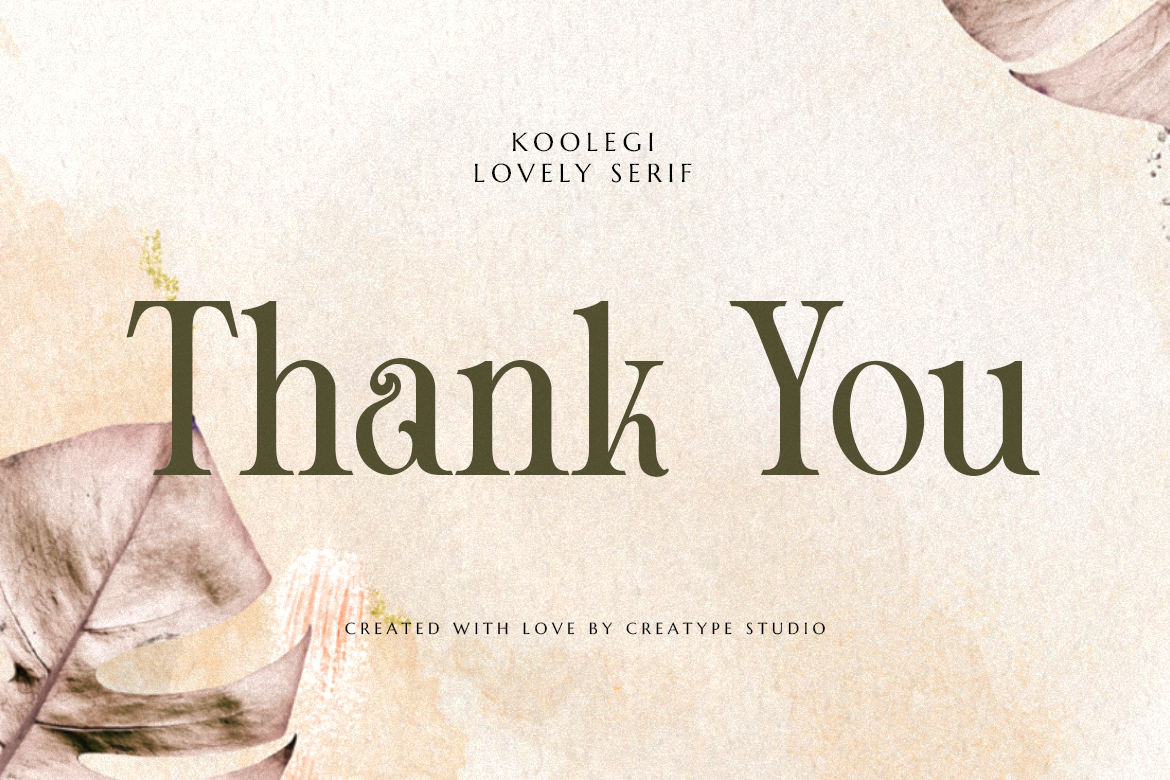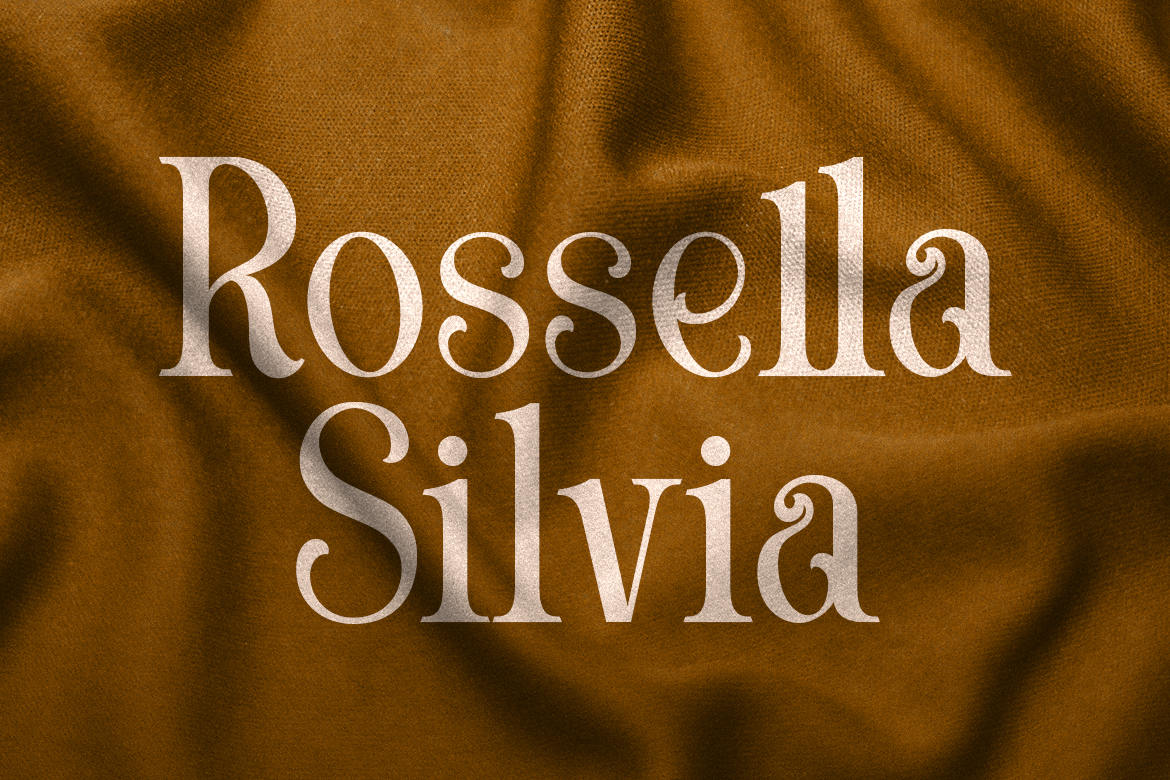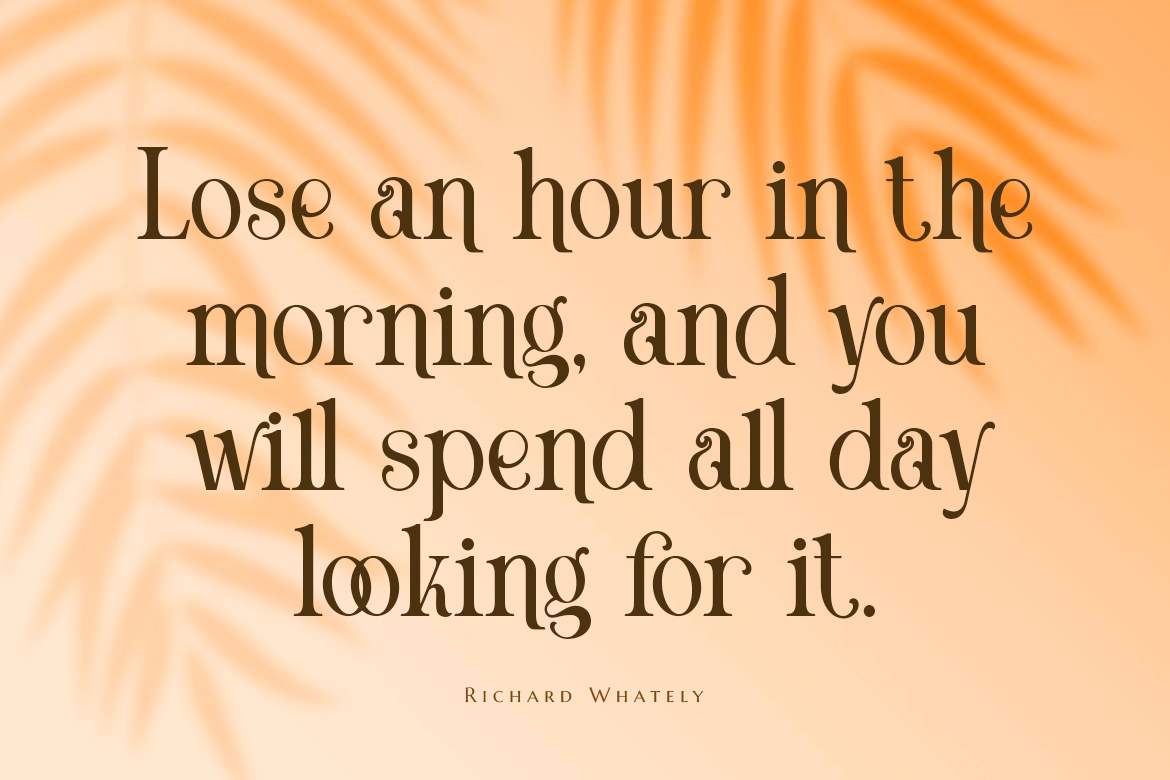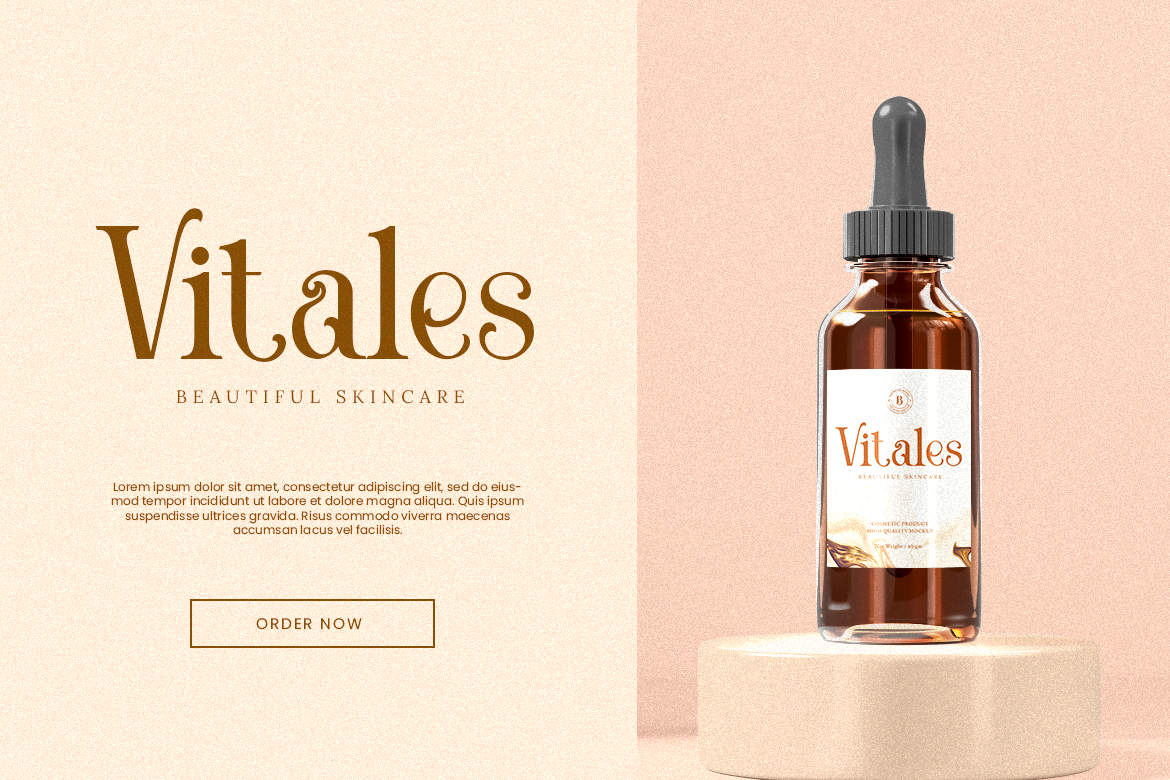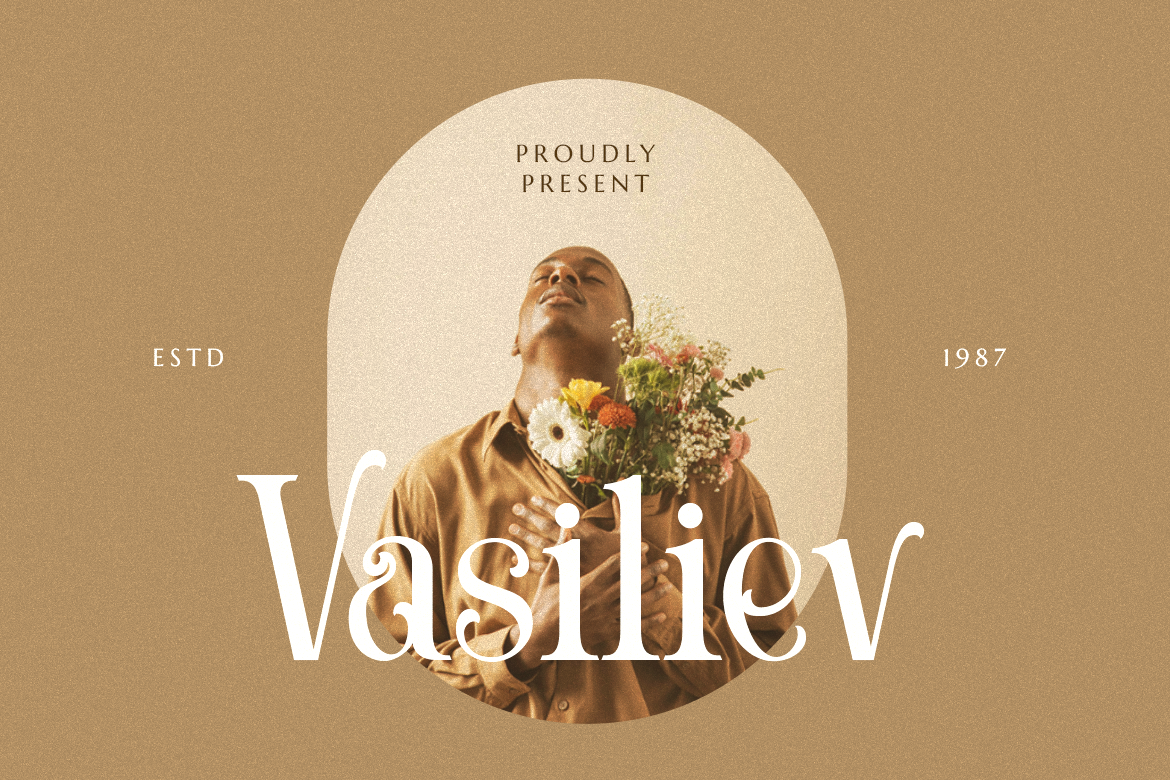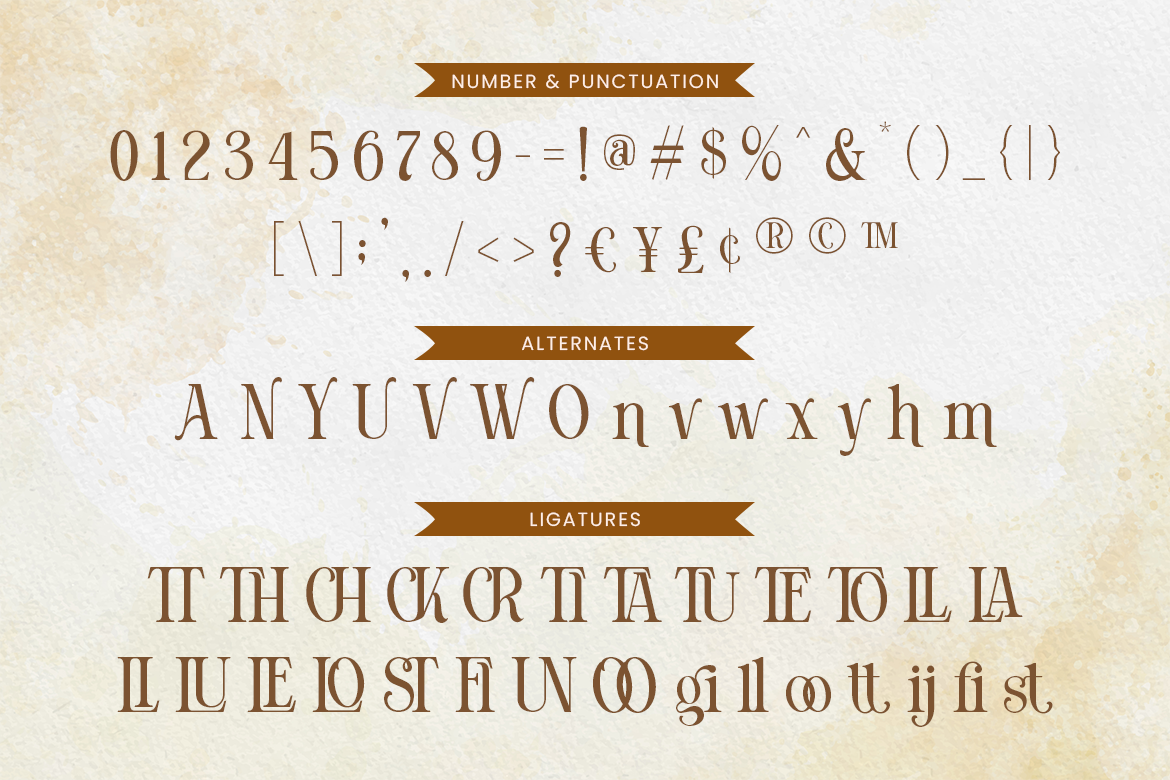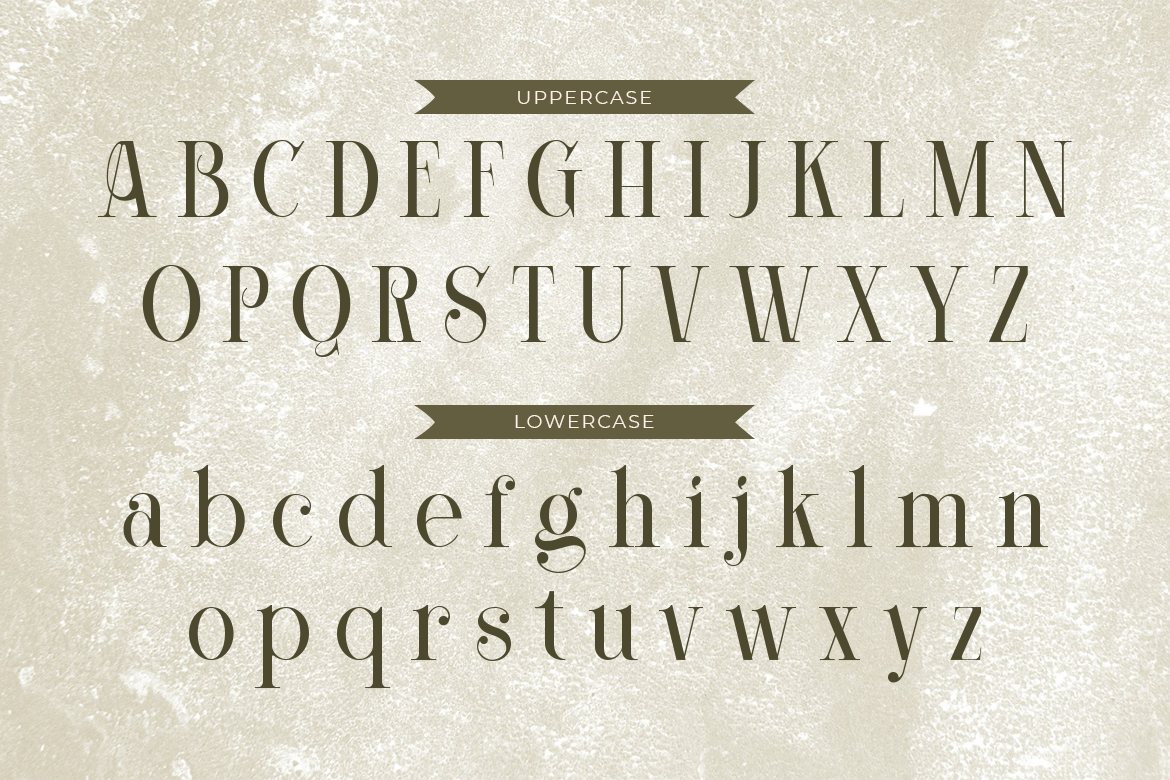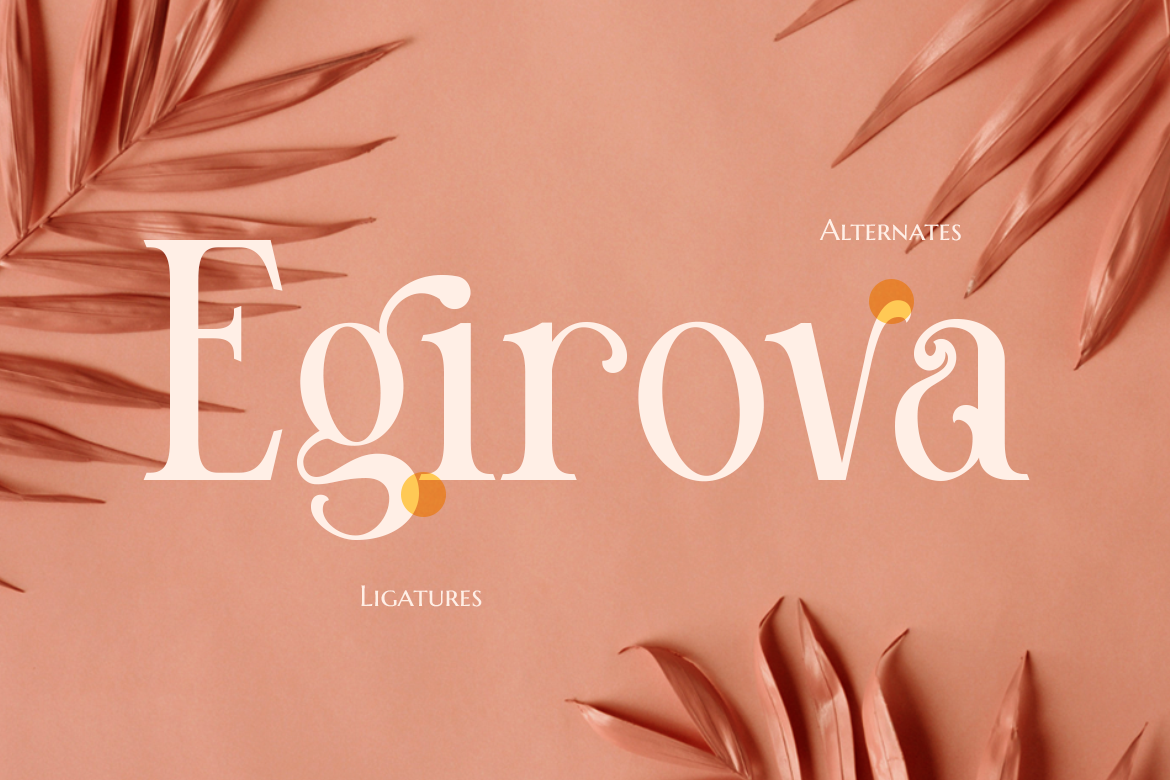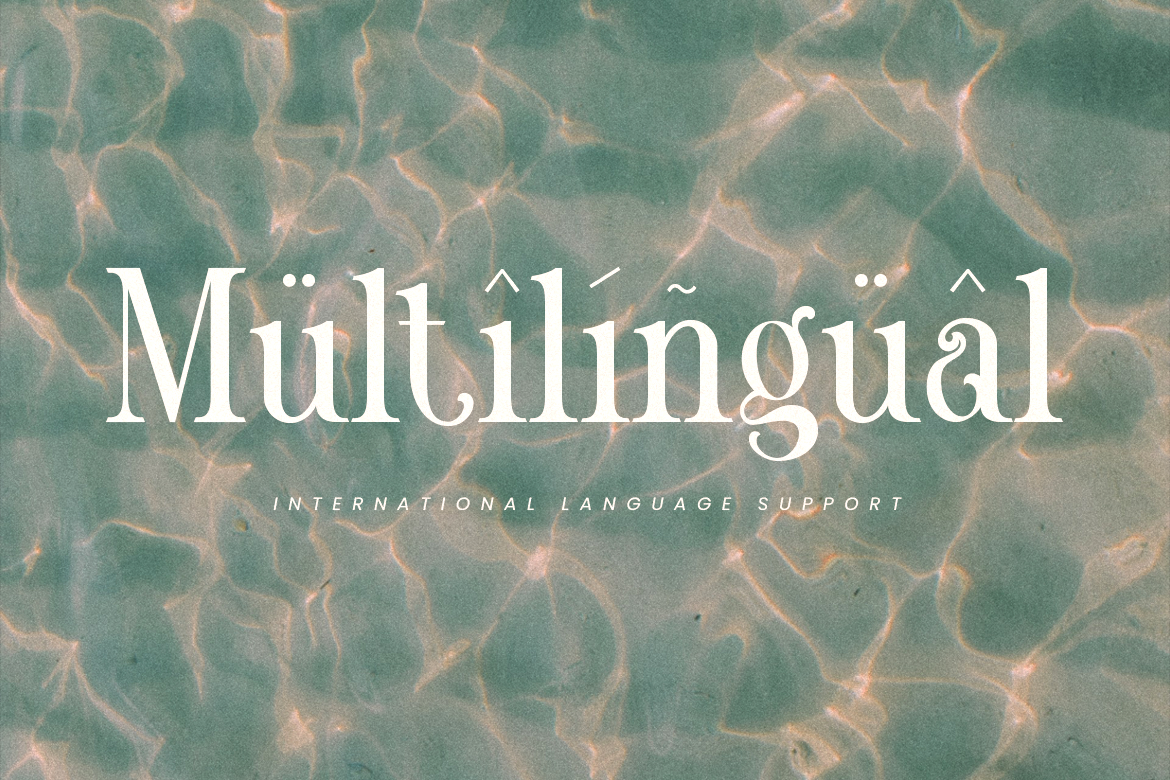
Koolegi Lovely Serif
Koolegi is elegance in simplicity: the ultra-thin, sleek typeface that captures the essence of modern minimalism.
Koolegi is perfect for branding projects, logos, wedding designs, social media posts, advertisements, product packaging, product designs, label, photography, watermark, invitation, stationery, and any projects that need handwriting taste.
• Ton of glyphs
• Ligature & Alternate
• Fonts include multilingual support for; Afrikaans, Albanian, Czech, Danish, Dutch, English, Estonian, Finnish, French, German, Hungarian, Italian, Latvian, Lithuanian, Norwegian, Polish, Portuguese, Slovak, Slovenian, Spanish, Swedish.